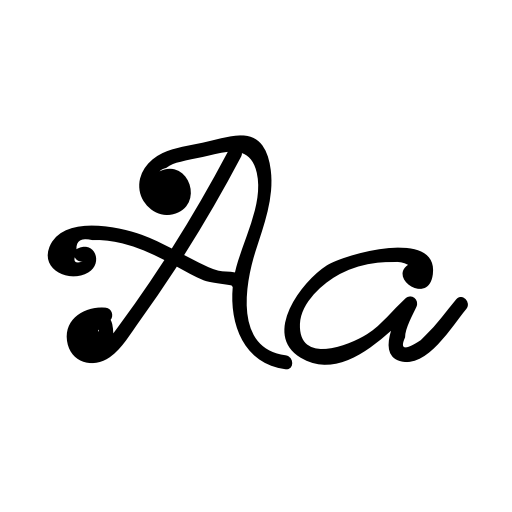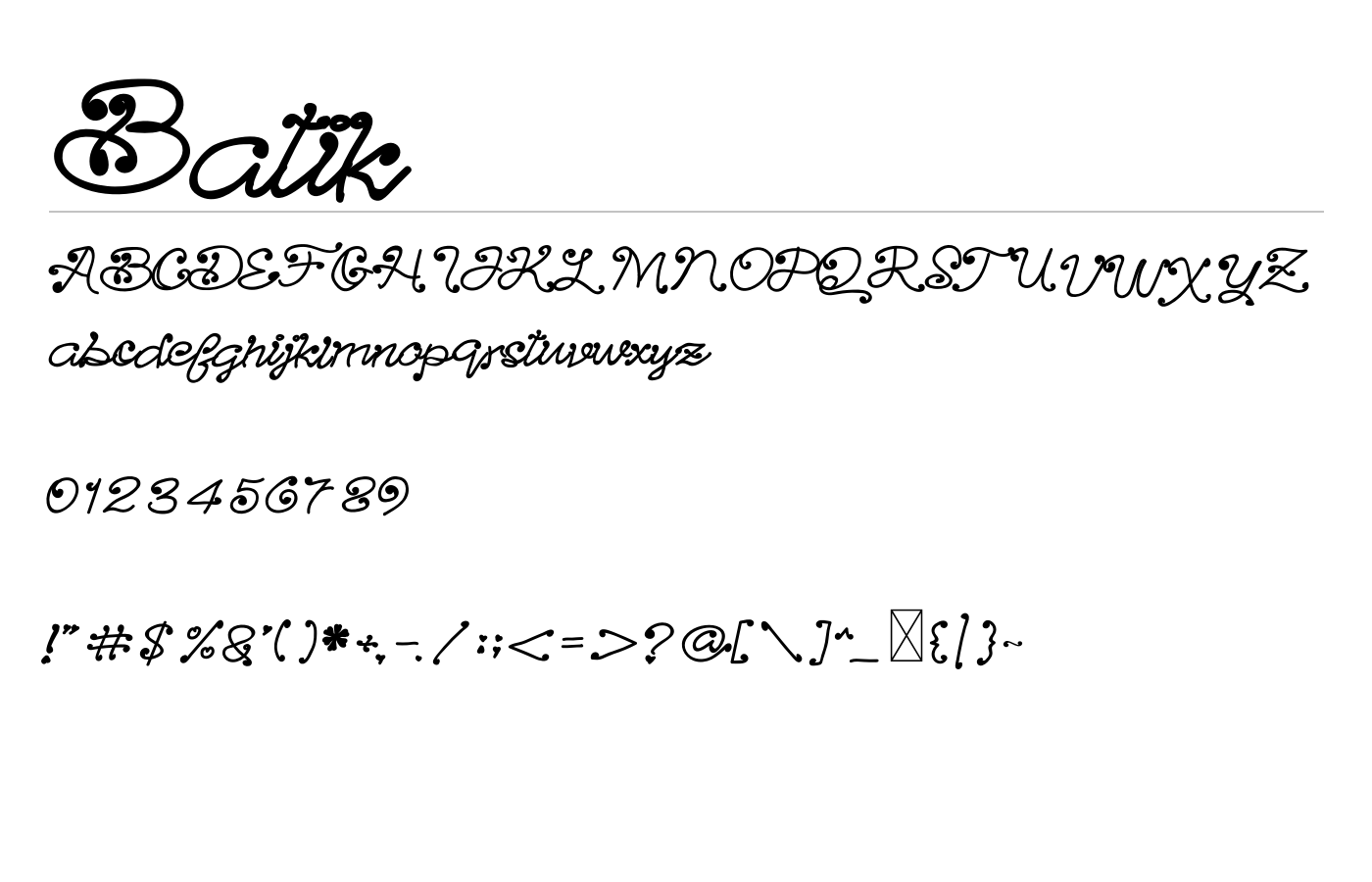
Batik is a decorative script font with a playful, ornate style characterized by its fluid, connected strokes and unique swirling terminals. It features a medium weight with elegant curves and whimsical details, making it perfect for creative and artistic branding, invitations, or eye-catching headlines where a distinctive, handcrafted feel is desired. This font shines in designs that seek a blend of charm and personality without sacrificing readability.
Batik Font
About Batik Font
| Font family | Batik Font |
| Designer | Angga Febriansyah |